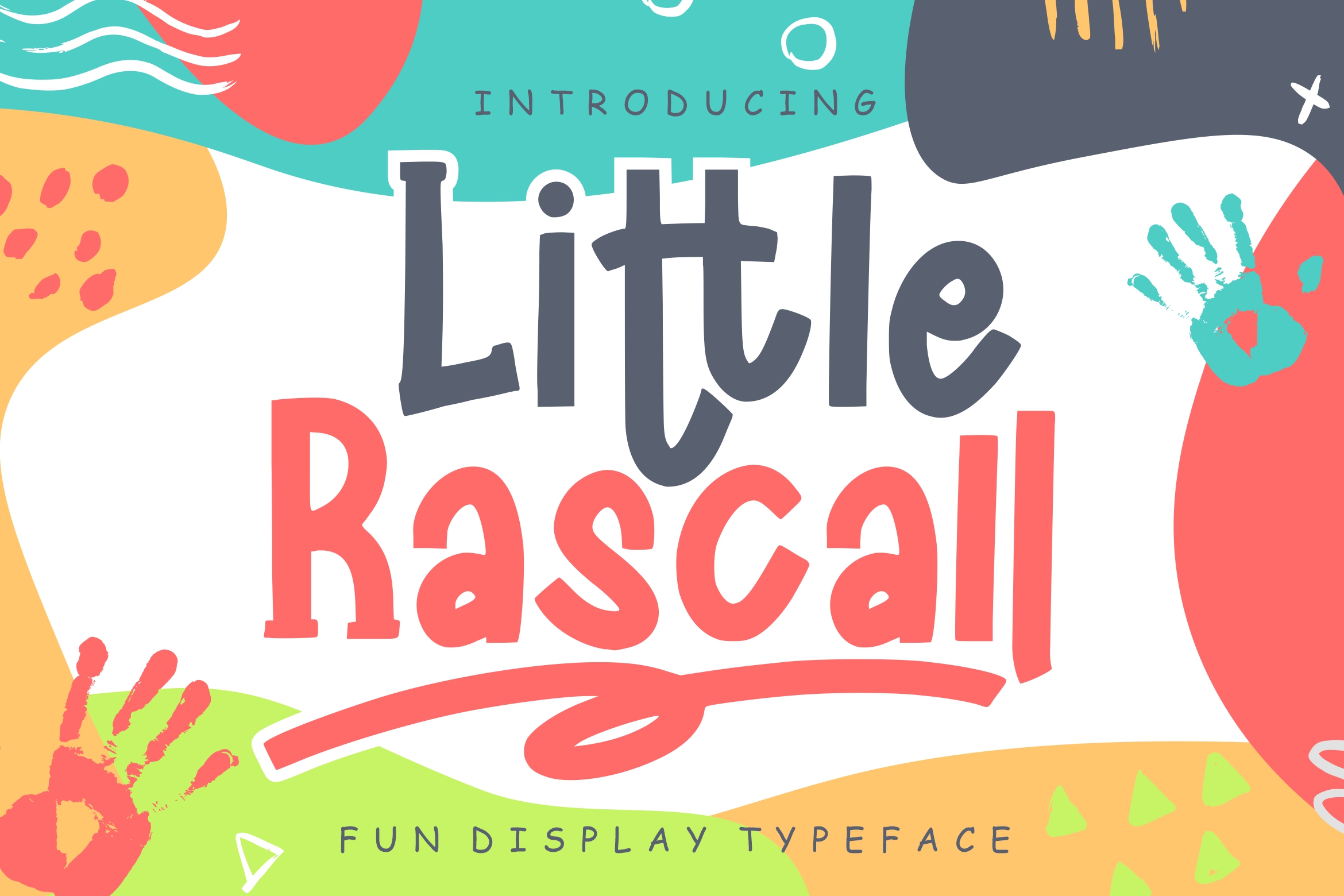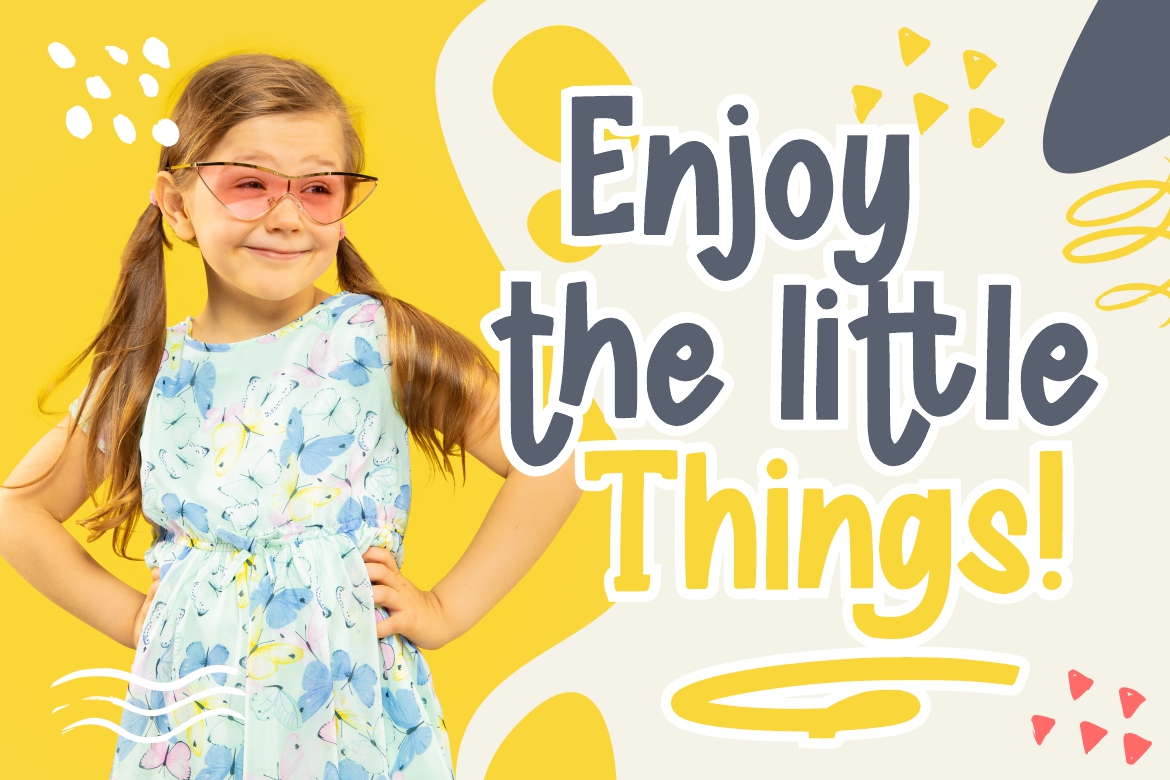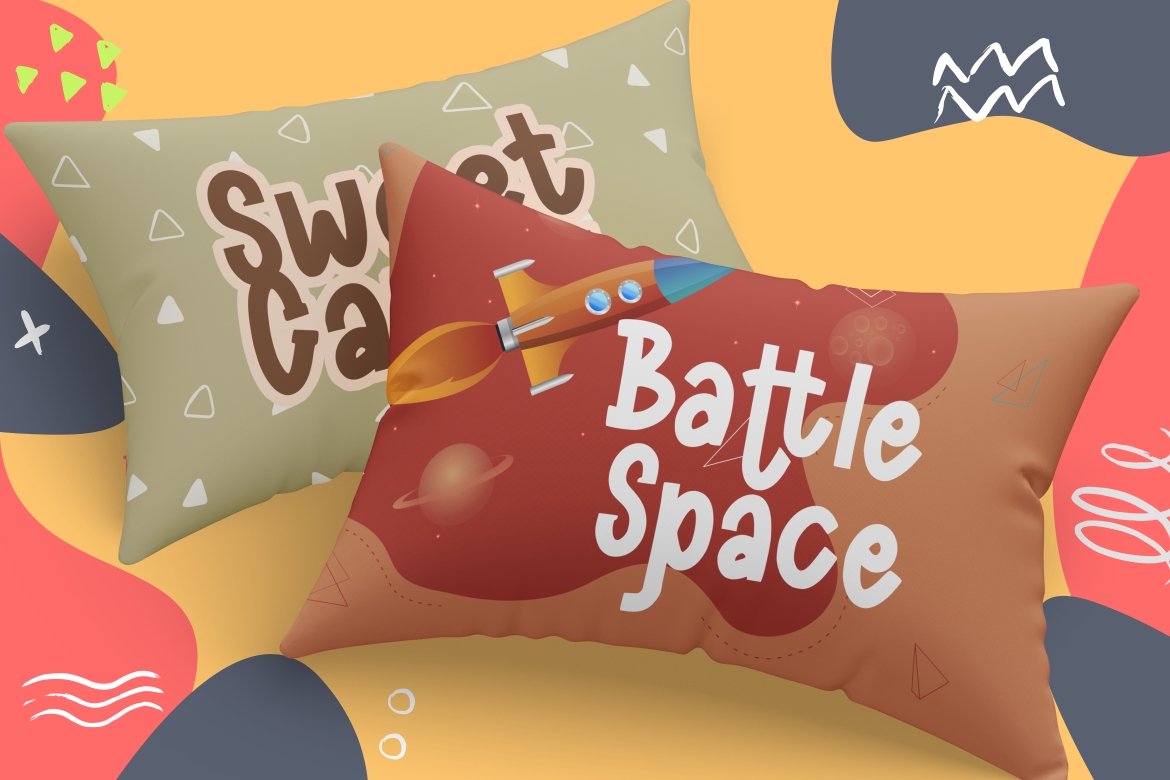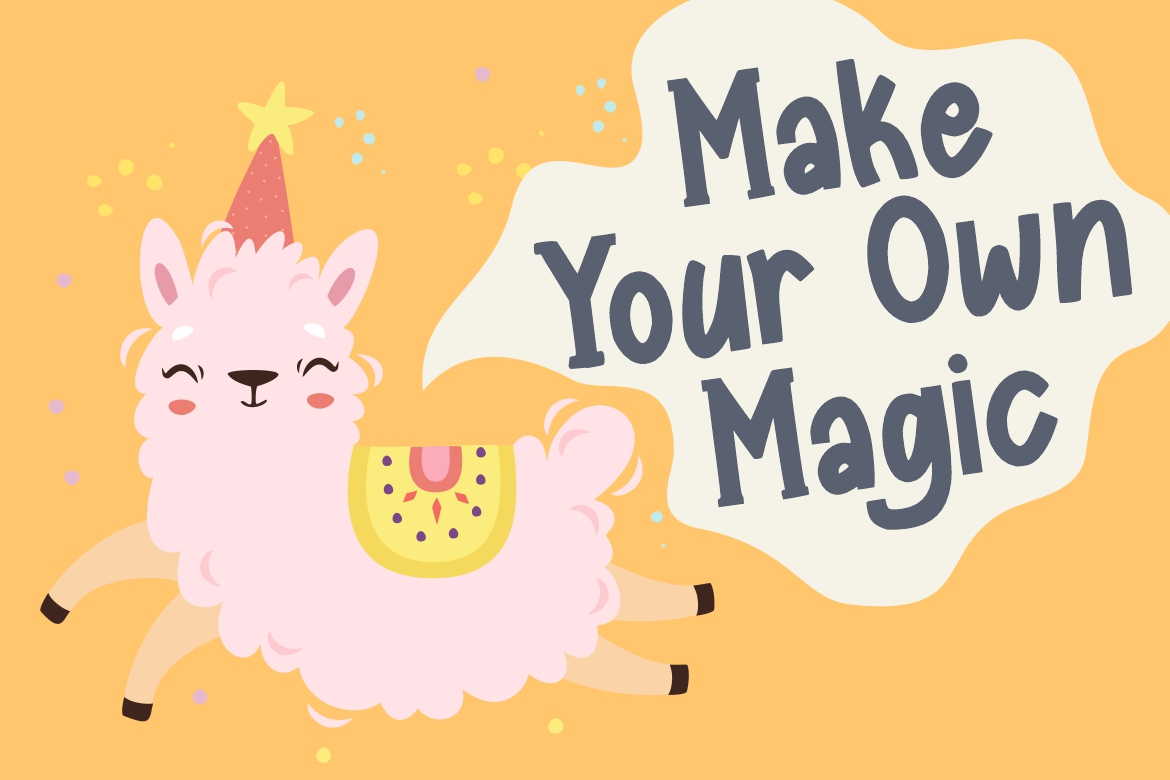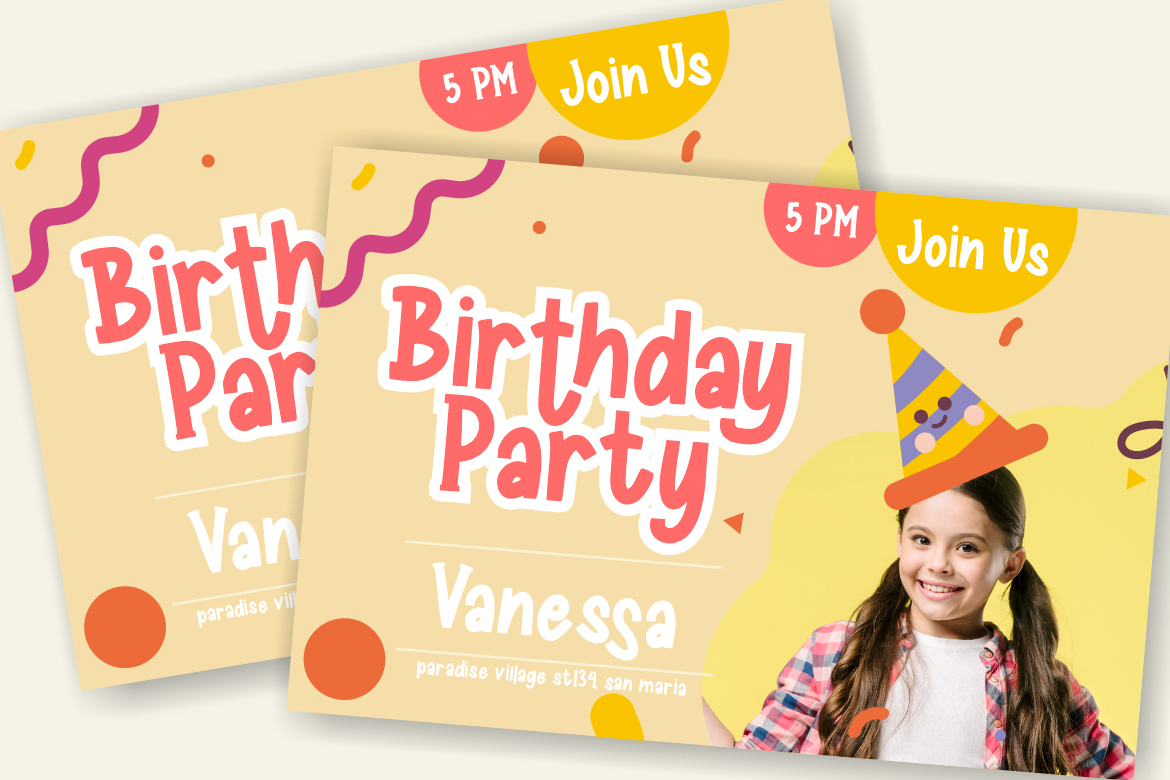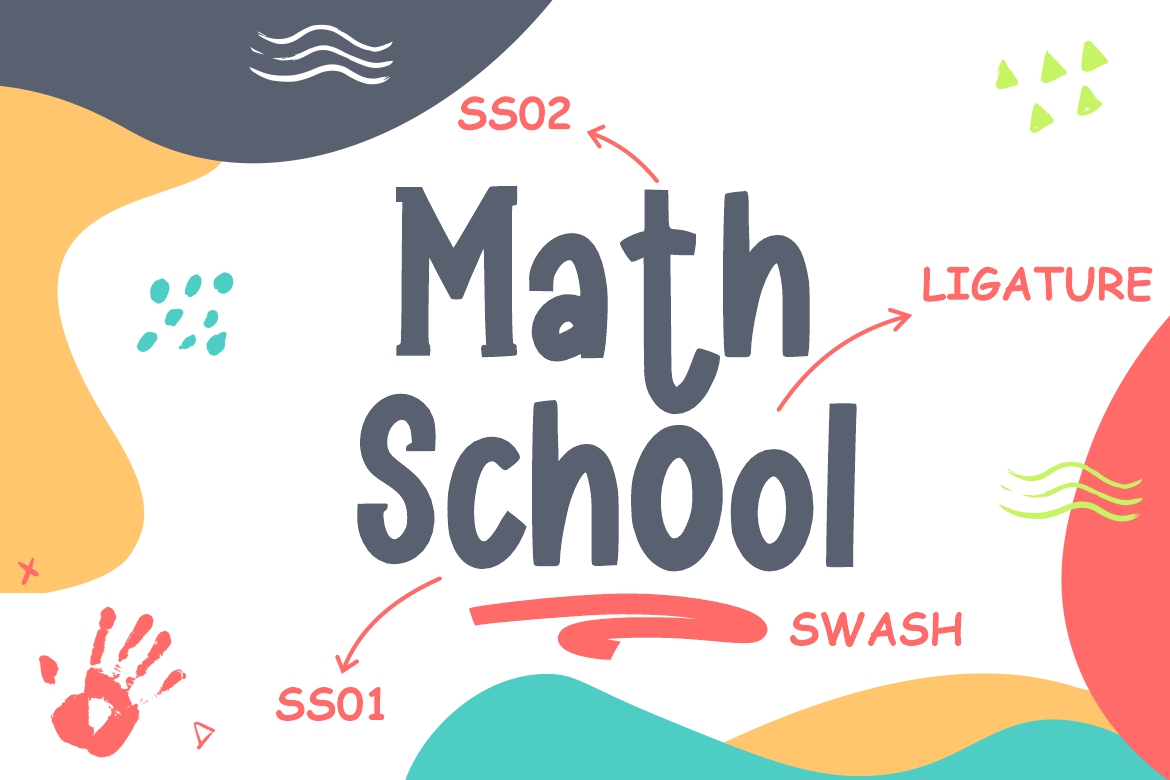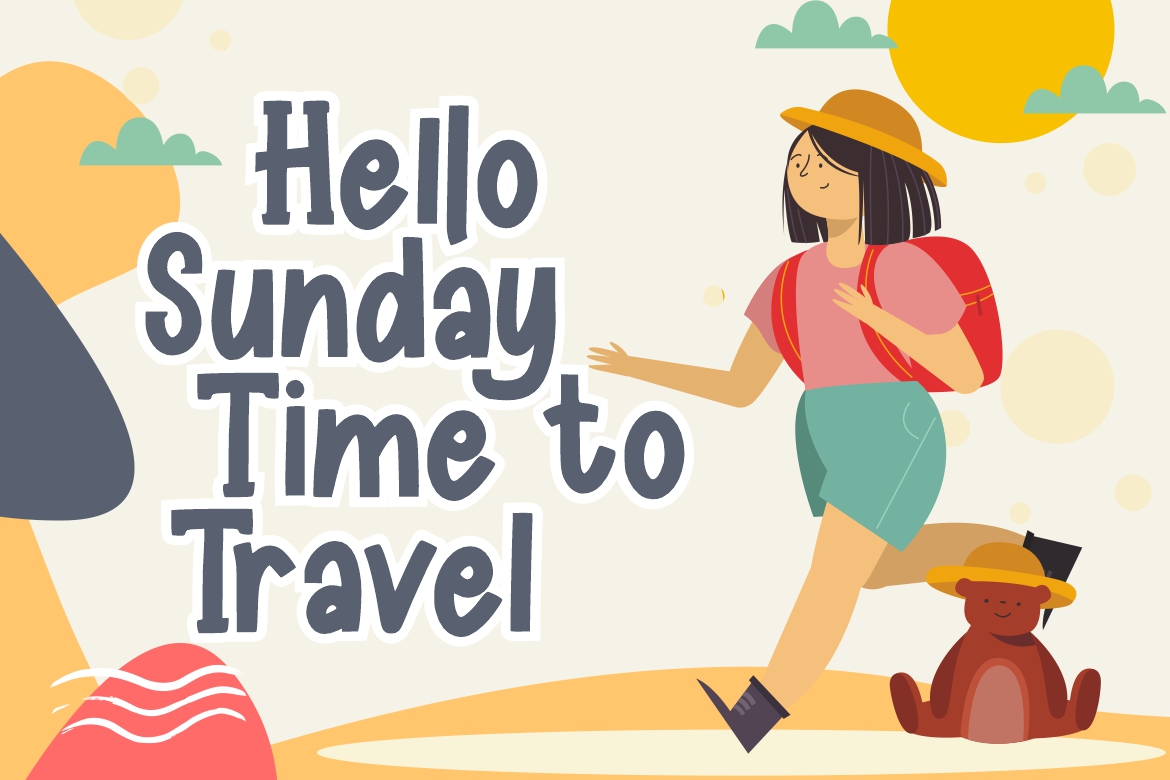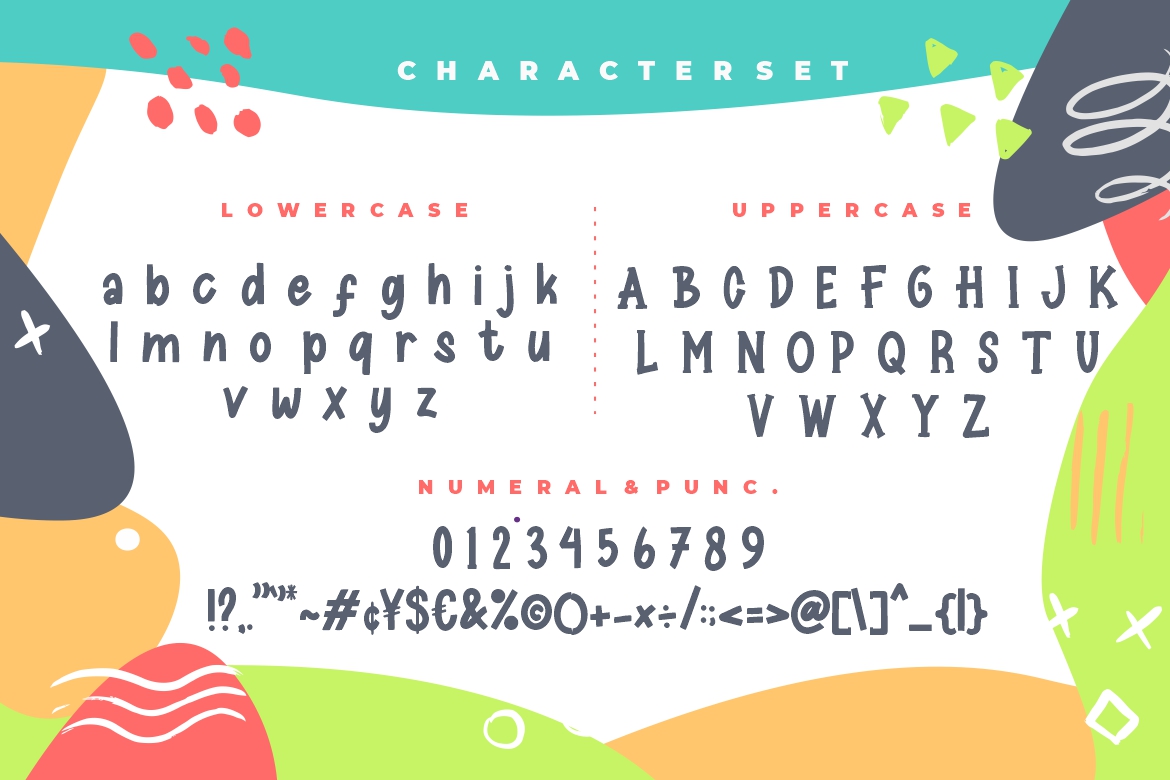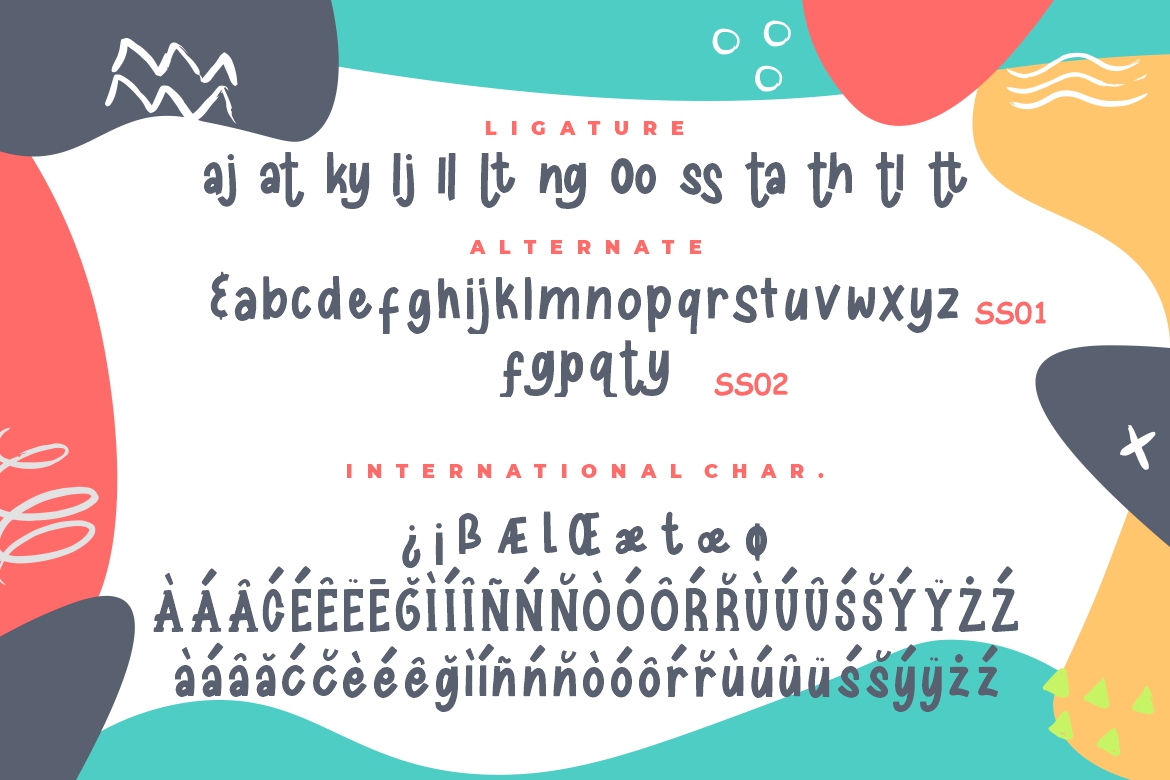
Little Rascall Instagram Font
Introducing Little Rascall Fun Display – A display children font with fun and playful theme perfect for children or kindergarten occasion. This font will looks awesome and amazing in many way to your latest project. The font is perfect for for movie title, logo, blogging, brand identity, book title, social media, branding, wedding invites, cards or simply use it in your next design project and suitable to use for many occasion.
- Fonts include multilingual support for; Afrikaans, Albanian, Czech, Danish, Dutch, English, Estonian, Finnish, French, German, Hungarian, Italian, Latvian, Lithuanian, Norwegian, Polish, Portuguese, Slovak, Slovenian, Spanish, Swedish.